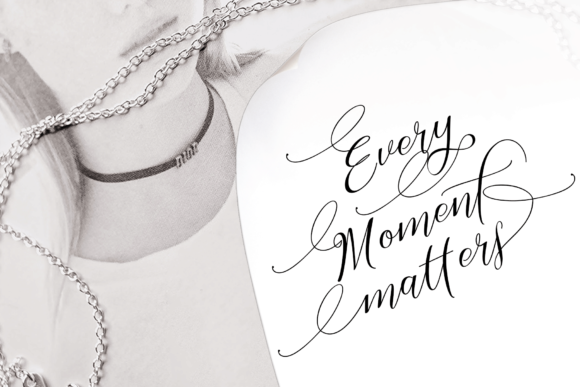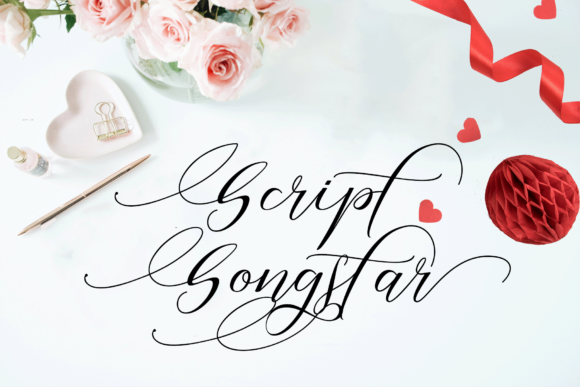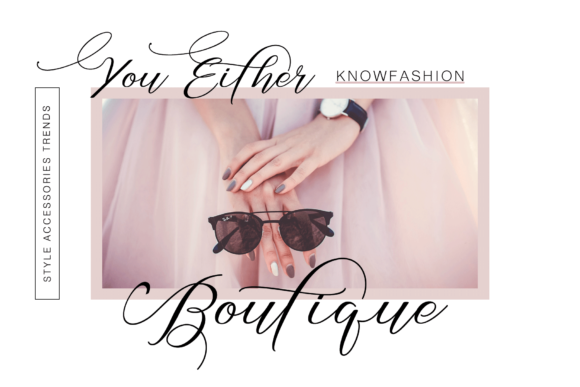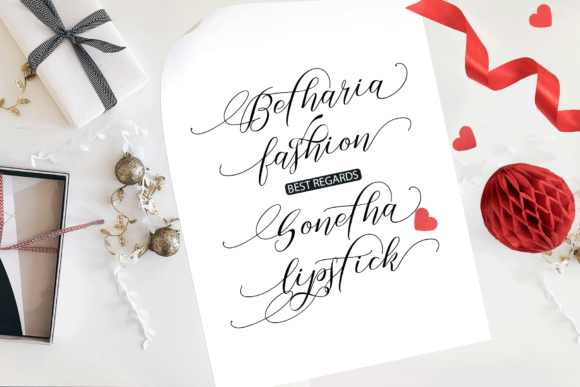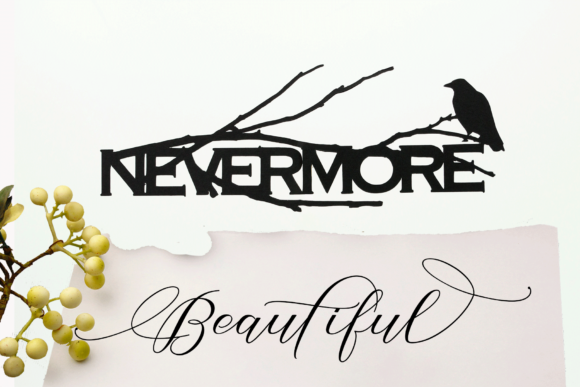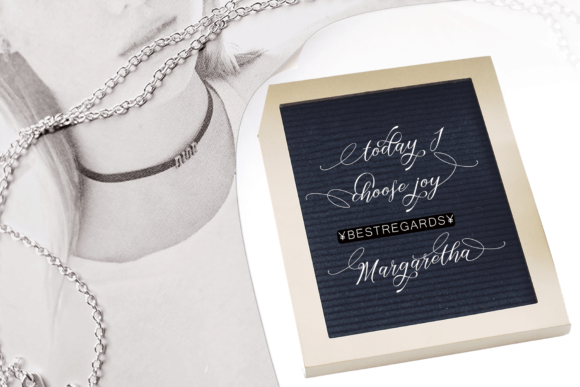
Introduction to Sinthiya Bella Font
Sinthiya Bella is a simple and classy script font, that comes with various elegant variations.
It is a great choice for watermarks on photography, signature logo designs, quotes, album covers, business cards and many other design projects This font is PUA encoded which means you can access all of the glyphs and swashes with ease.
Key Features of Sinthiya Bella Font